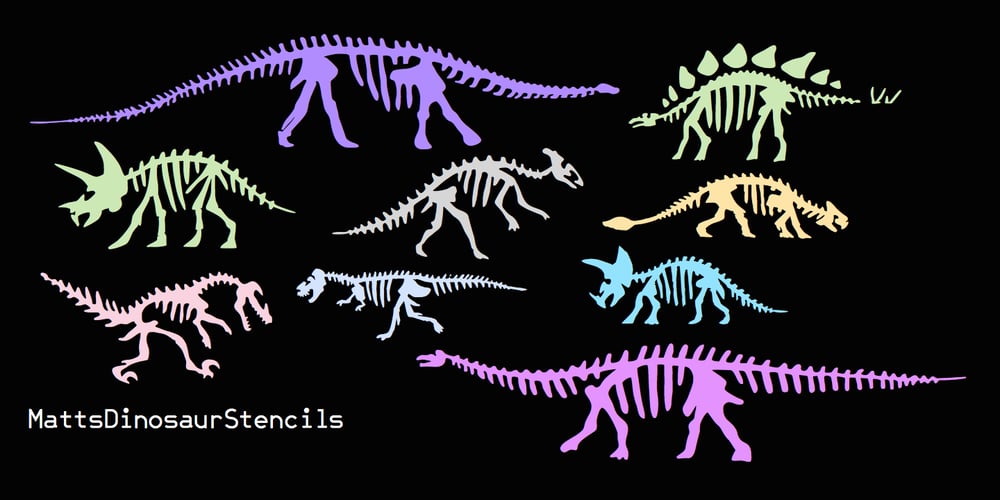
MattsDinosaurStencils
MattsDinosaurStencils font
MattsDinosaurStencils Font Family was designed by Matthew Schenk, Robert Schenk and published by Ingrimayne Type. MattsDinosaurStencils contains 1 styles and family package options. This typeface is mostly composed of images of dinosaur skeletons drawn by Matthew Schenk and used as stencils for decoration. I thought they would also make a nice typeface. Check the key map—some of the very large critters are cut into pieces and put on several keys—this may help printing in some situations.